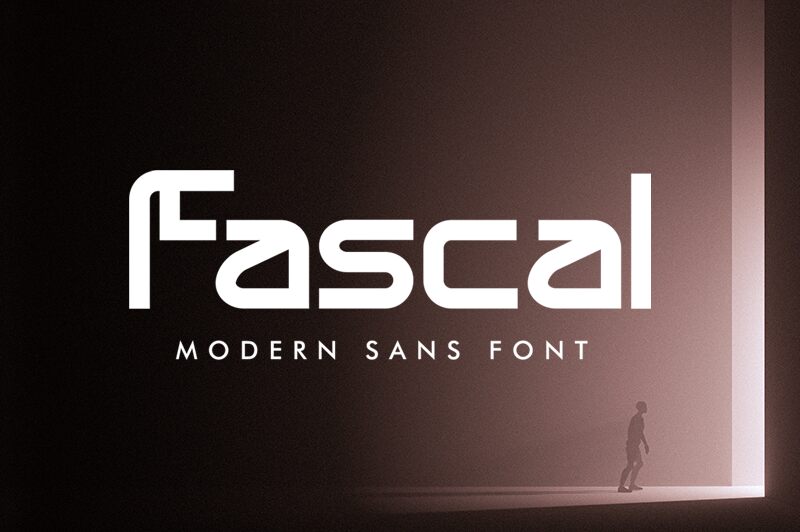
Fascal
Fascal is a striking, techno-inspired font that commands attention. Designed by Vultype, this display typeface exudes a bold, modern sensibility with its expanded letter forms and angular, futuristic aesthetic.
The expansive width of Fascal lends it a powerful, impactful presence, making it well-suited for headlines, branding, and attention-grabbing design elements. This font's sleek, geometric shapes and crisp lines evoke a sense of technological sophistication, making it an excellent choice for digital interfaces, product packaging, and any design project that requires a fresh, cutting-edge visual identity.
Fascal's strong personality and dynamic style make it a versatile tool for designers seeking to create designs that are both visually striking and conceptually compelling.